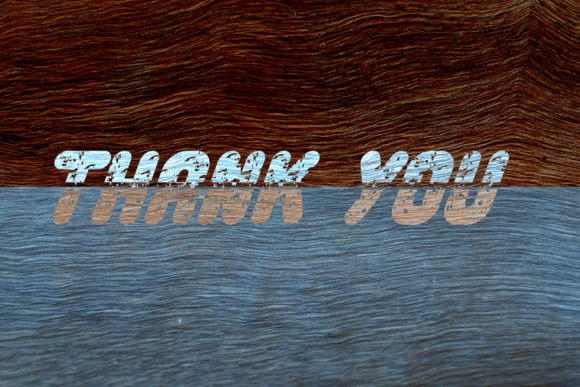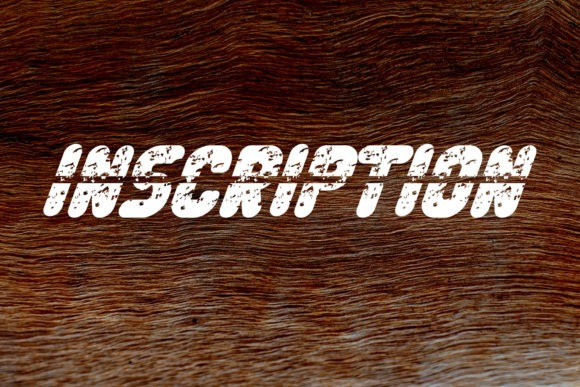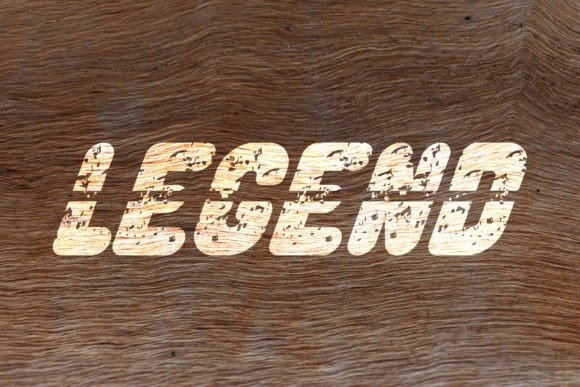
Legend Display Font
Legend Display Font, is a cool, thick lettered and rough textured display font. It will instantly make your designs come to life. The only limit in employing this font is your imagination.